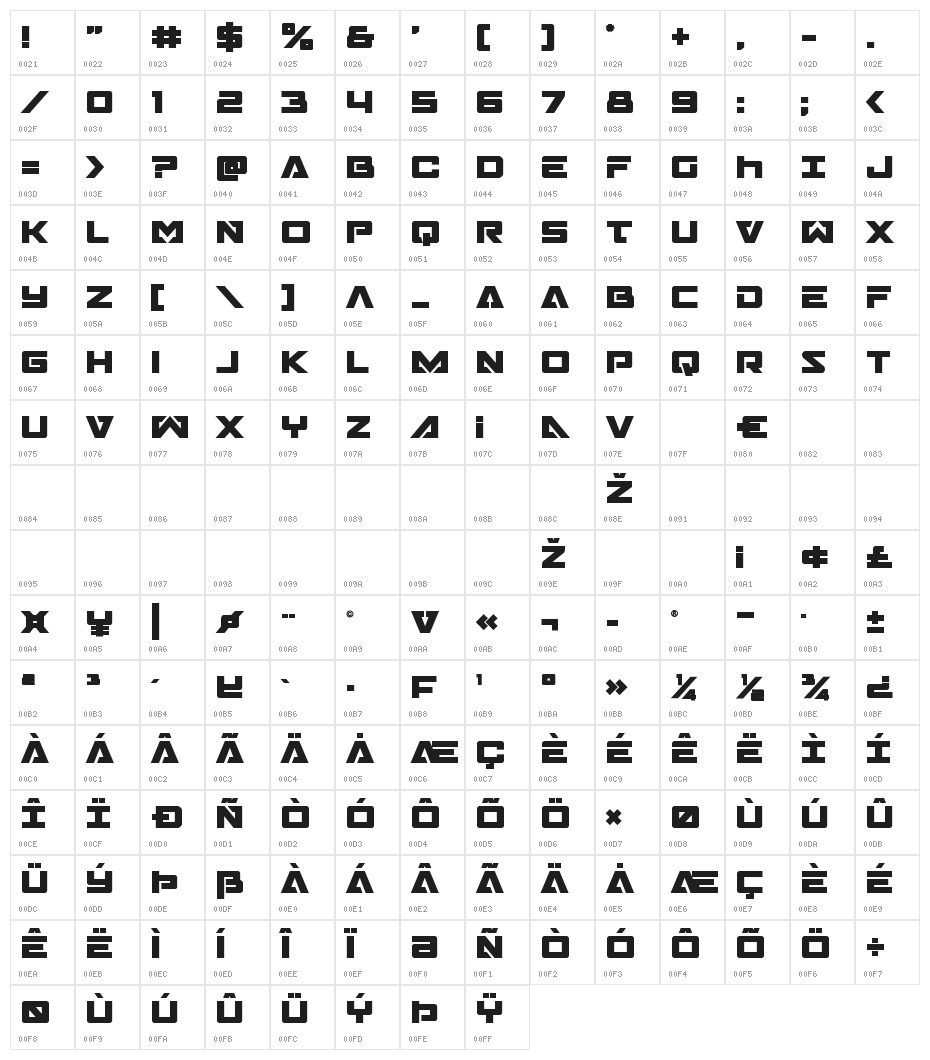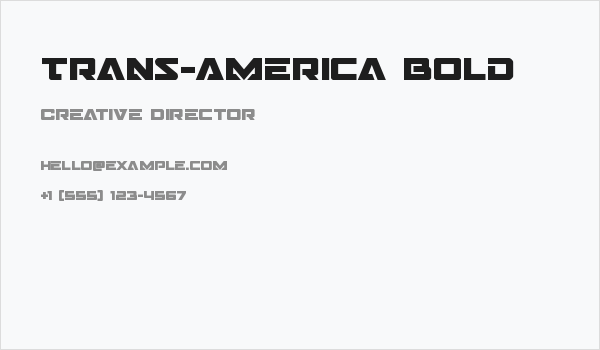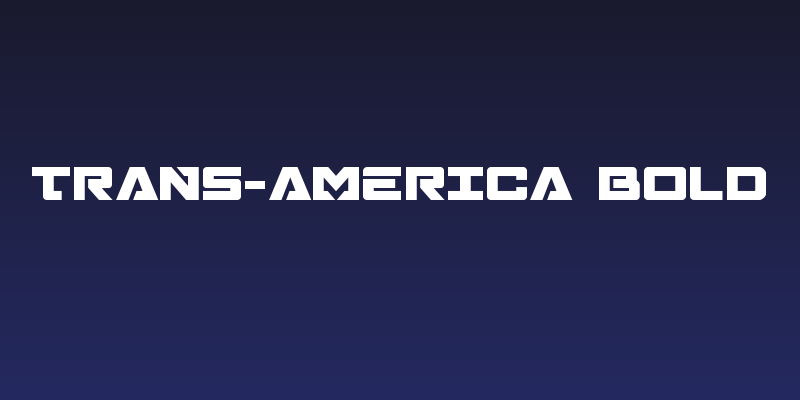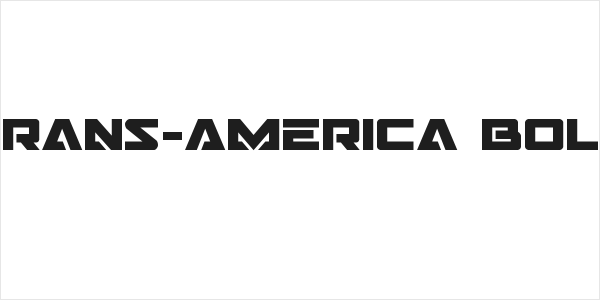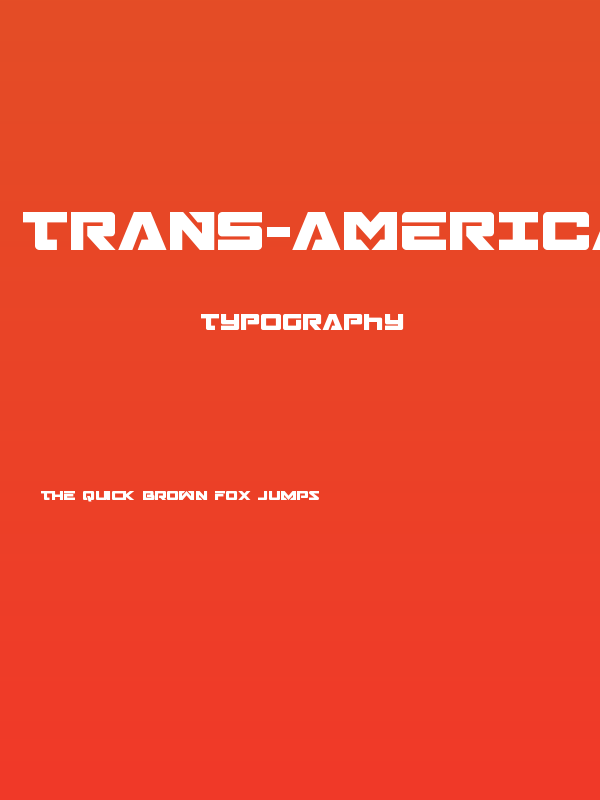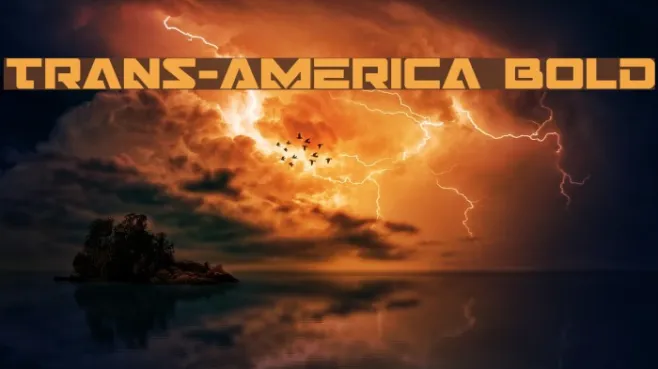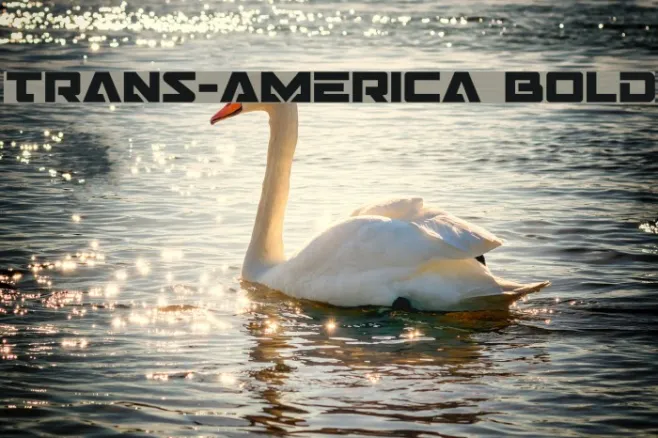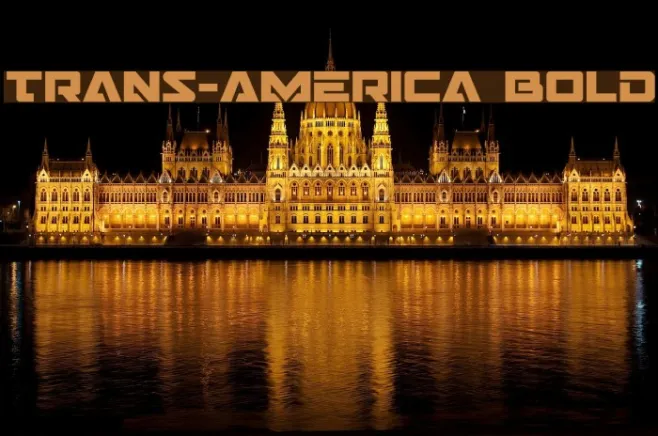
Trans-America Bold Font
Trans-America Bold Description
This font features a bold and geometric design with a strong presence. The characters are constructed with sharp angles and straight lines, giving it a futuristic and industrial feel. The uppercase letters are particularly striking, with a consistent height and width that create a uniform appearance. The numbers and special characters maintain this bold aesthetic, ensuring readability and impact. The font's style is both modern and assertive, making it suitable for projects that require a strong visual statement.
| Proposed Projects | Ideal for branding, posters, headlines, and any design work that requires a bold and modern look. |